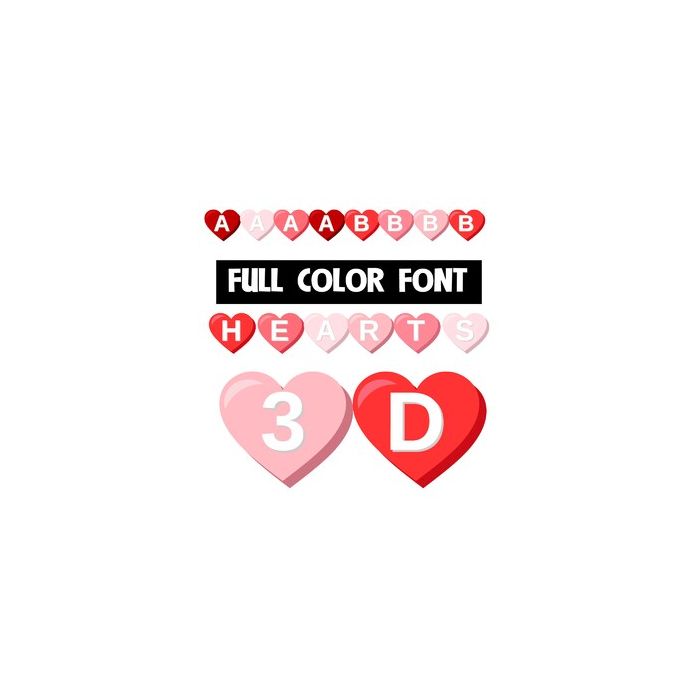
This full-color font features 3D hearts with lettering. There is an alt case with alternative color choices that you can access thru your system's character map.